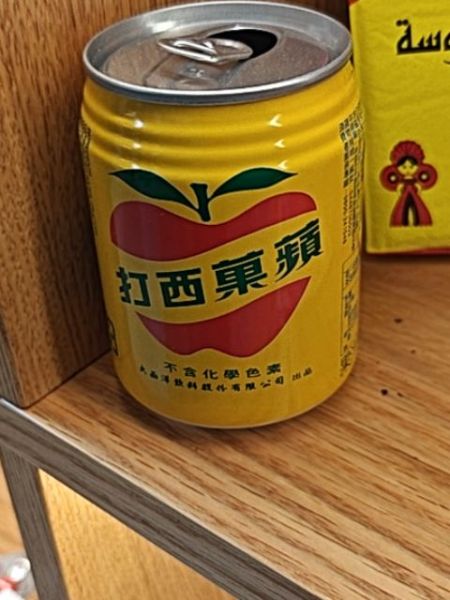
Daxi Apple Soda
A carbonated apple-flavored soft drink offering a refreshing and sweet taste.
China
The typography is bold and legible, utilizing a sans-serif font that adds a modern touch. The characters are prominently centered on the package, balanced with both the graphic and informational content. The text color contrasts sharply with the yellow background, enhancing readability.
The packaging features a bright yellow background with a minimalist red apple graphic that gives a clear visual cue of the flavor. The bold color choice makes the product stand out on the shelf and conveys a sense of vibrancy and energy.